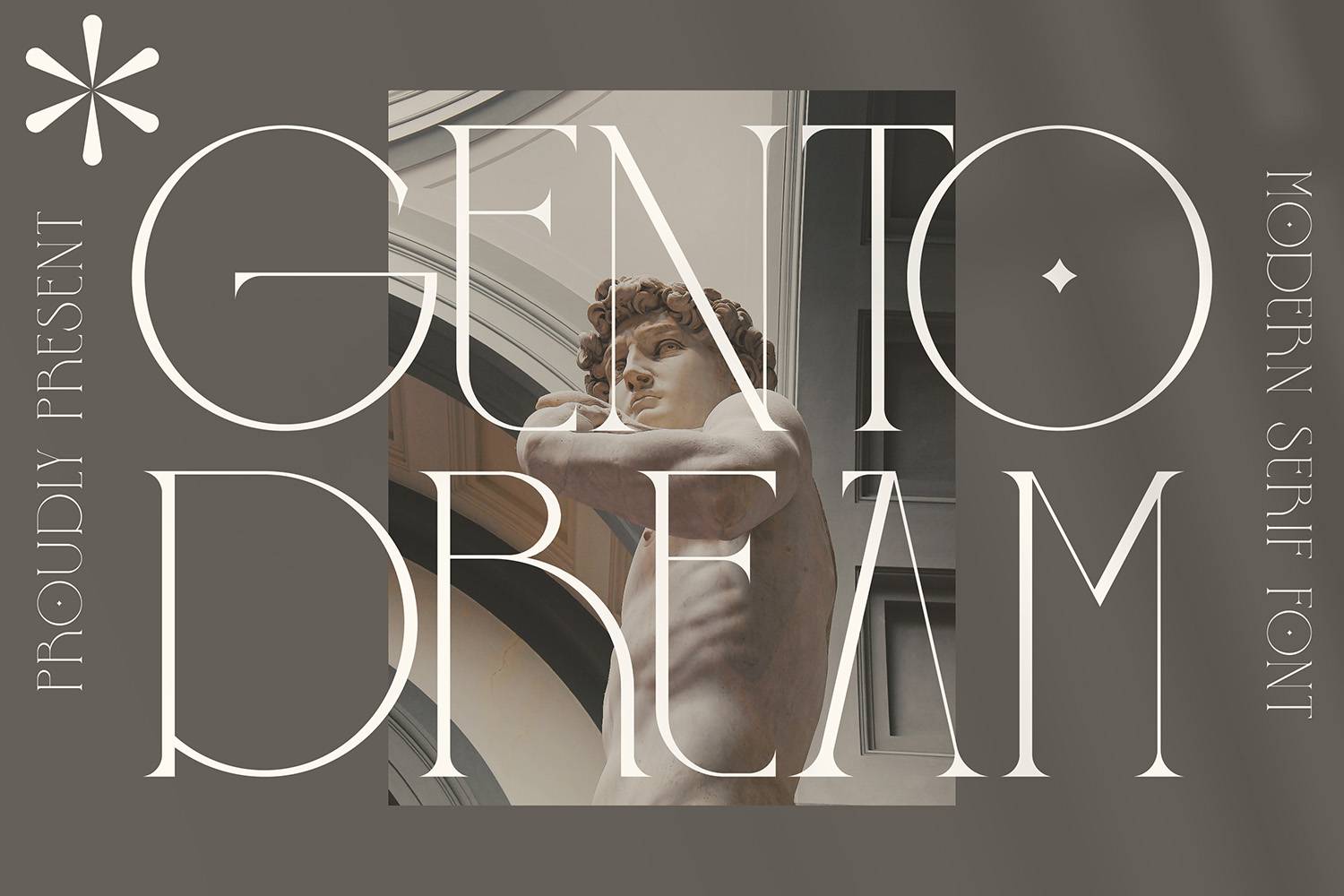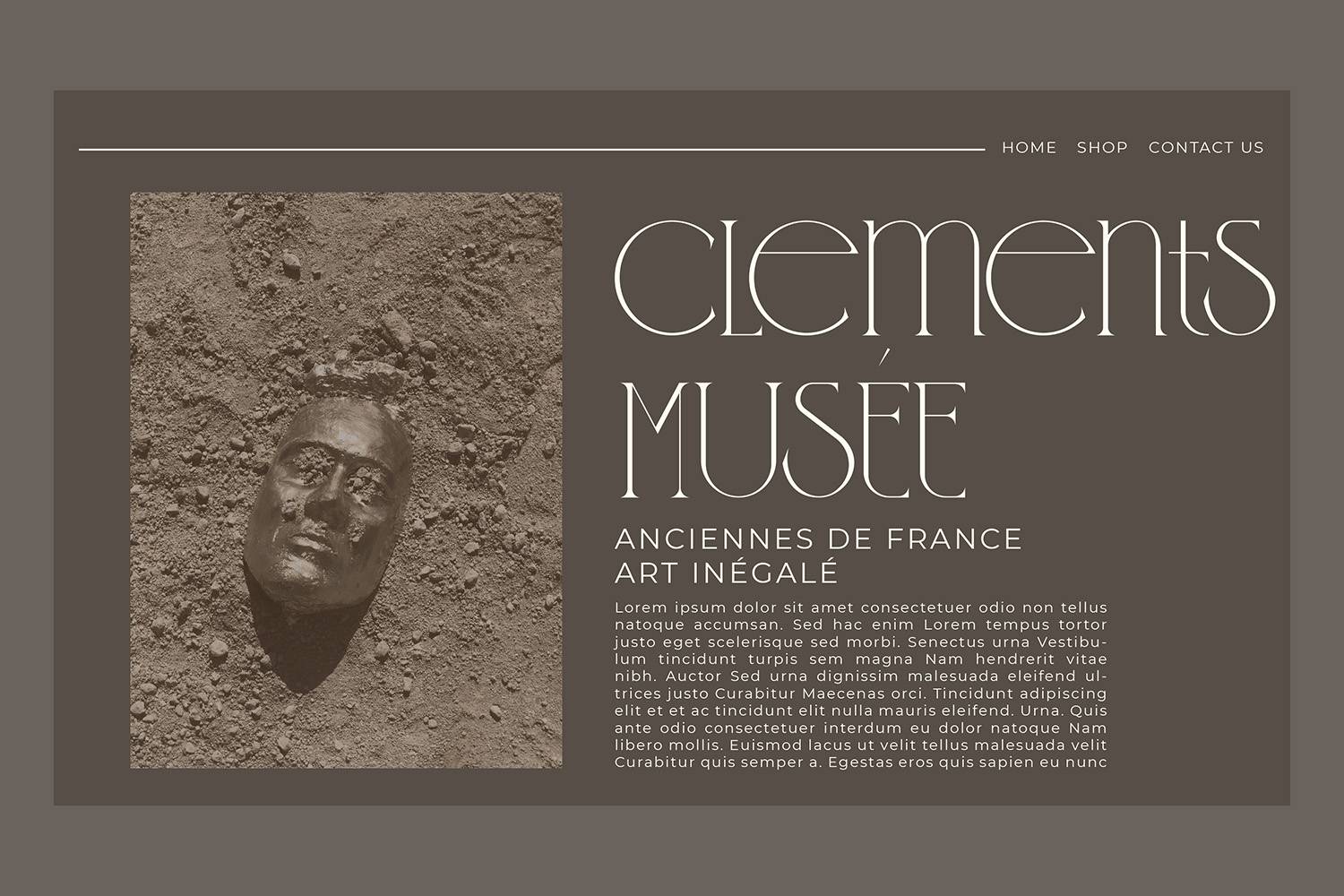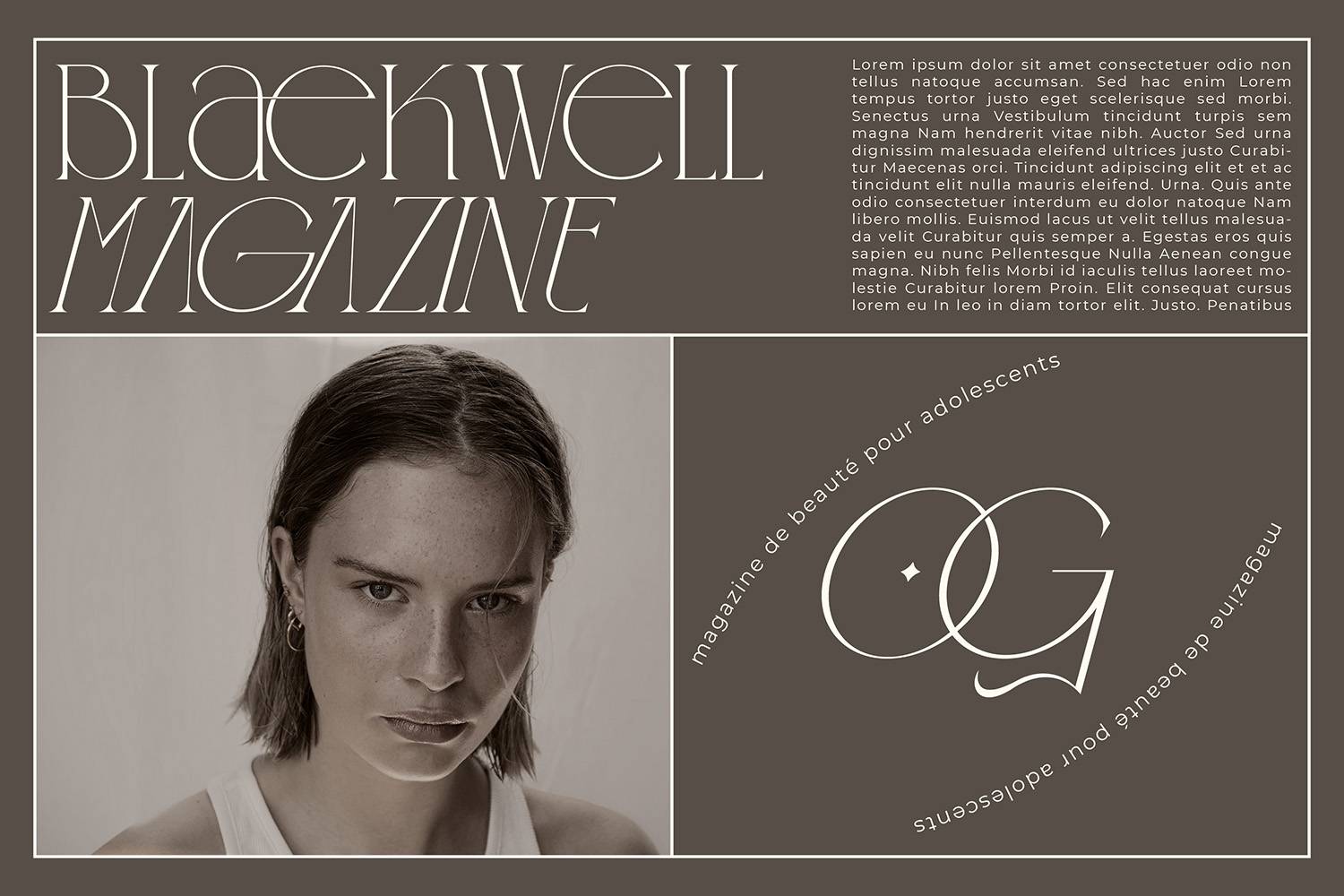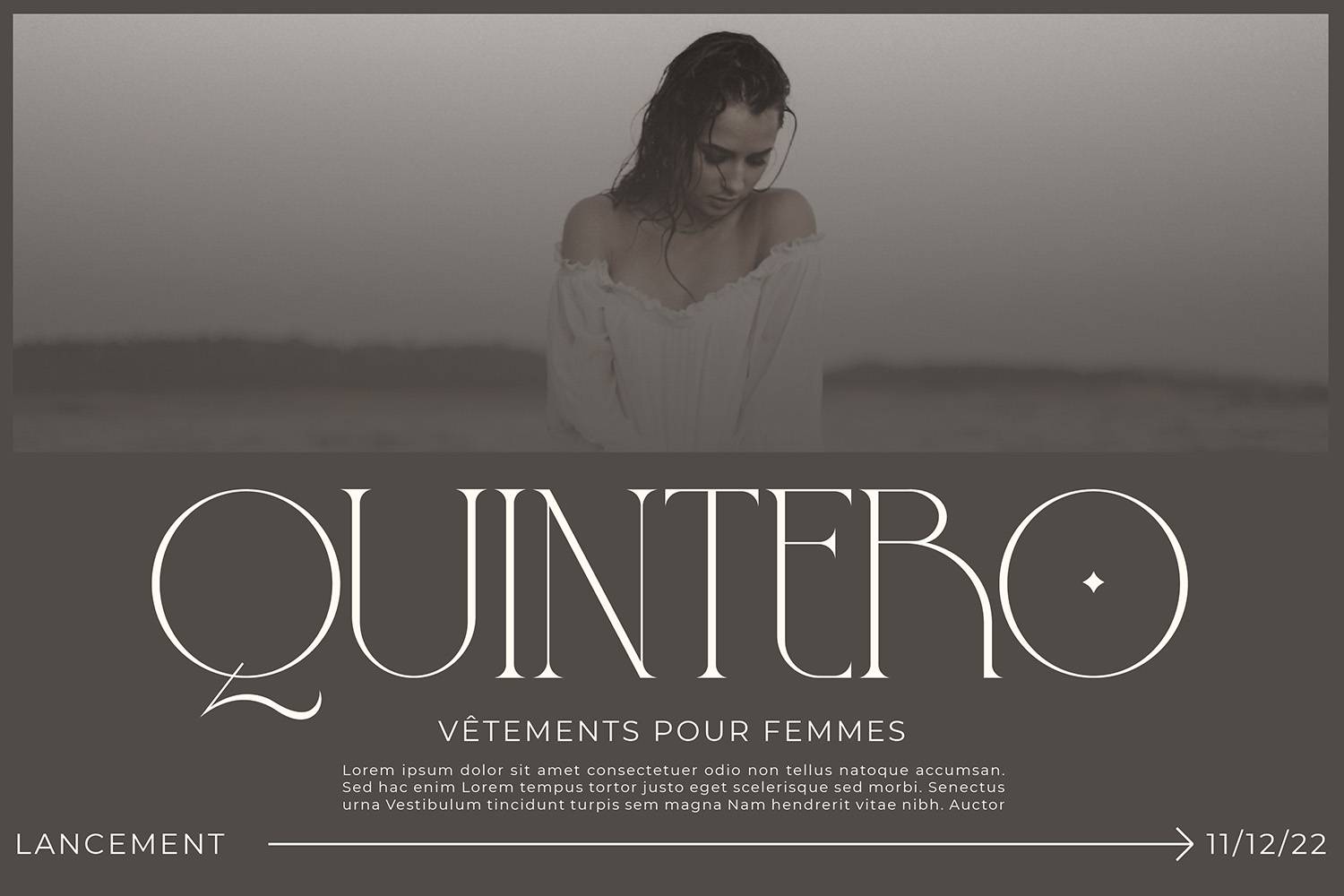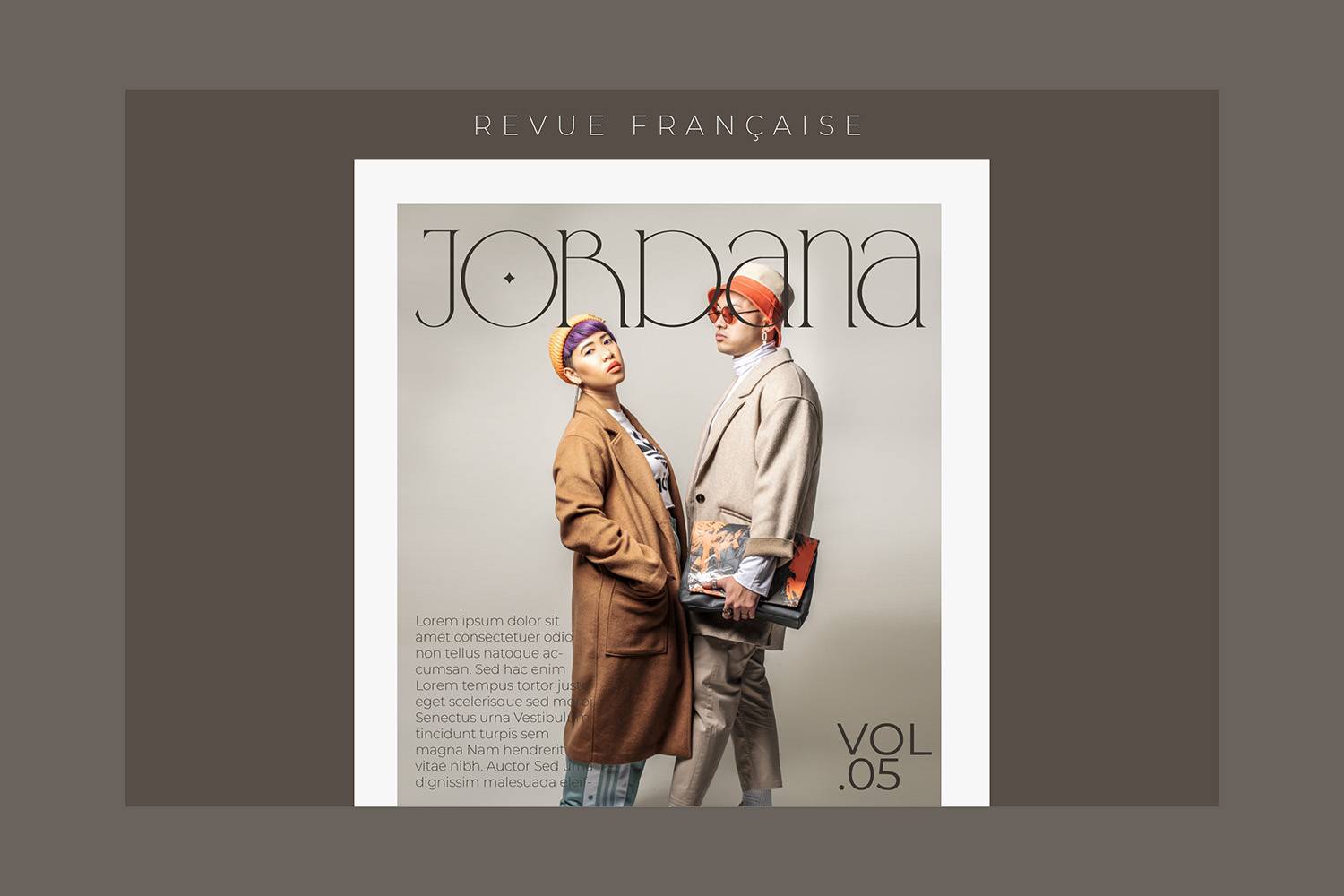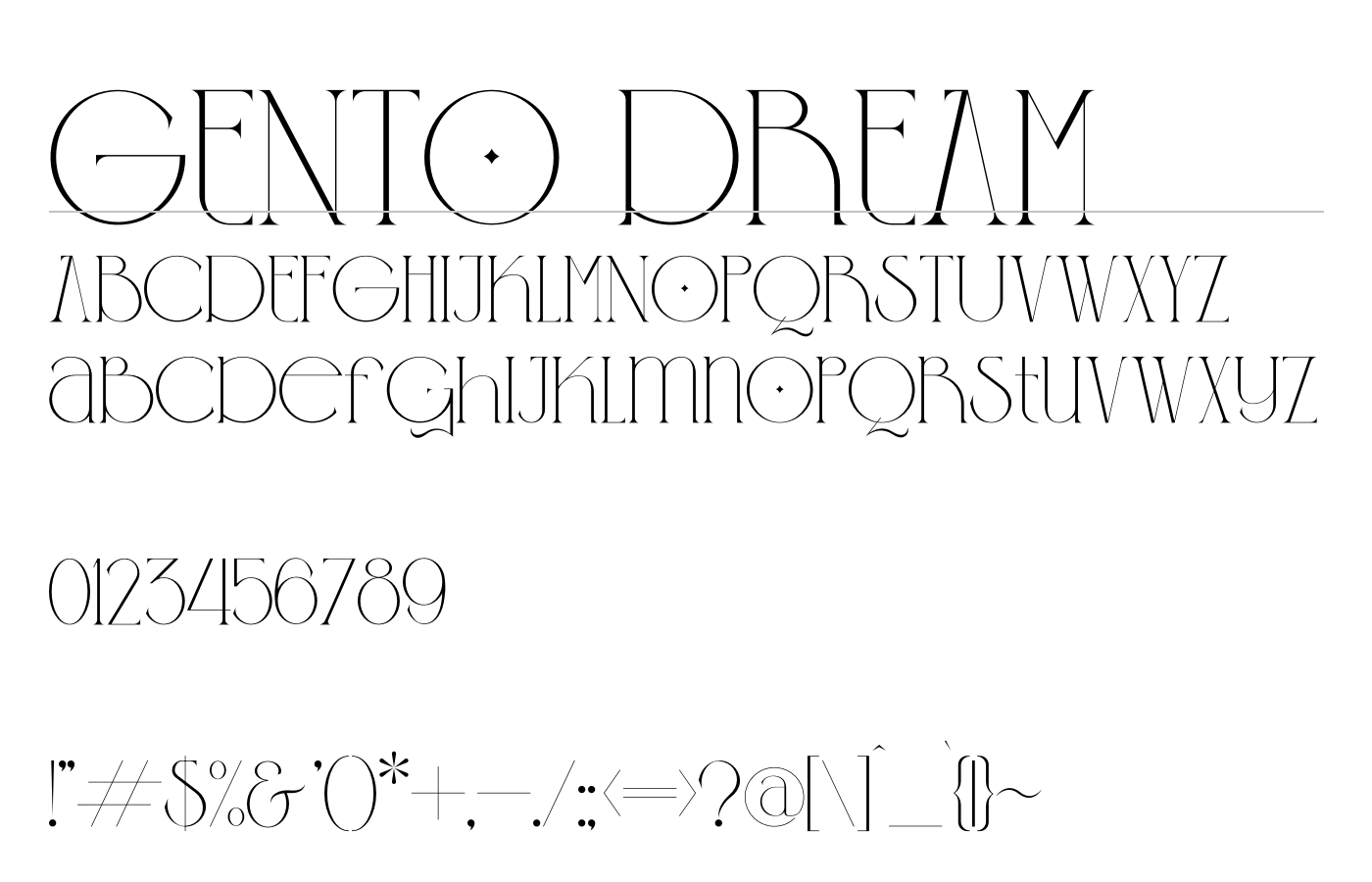
Gento Dreams is an elegant, ultra-thin serif font with high contrast between thick and thin strokes, featuring unique, delicate letterforms that blend modern sophistication with art deco charm. Its tall, narrow proportions and fine details make it ideal for upscale branding, fashion magazines, and stylish headlines where a luxurious, refined feeling is desired. This font excels in display use, adding a graceful and distinctive touch to any design that aims to impress with subtle elegance.
Gento Dreams Font
About Gento Dreams Font